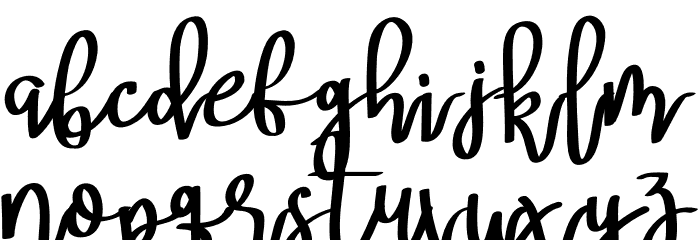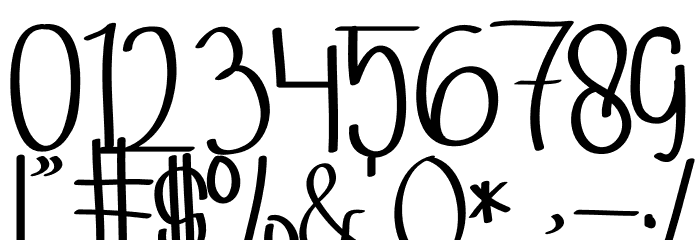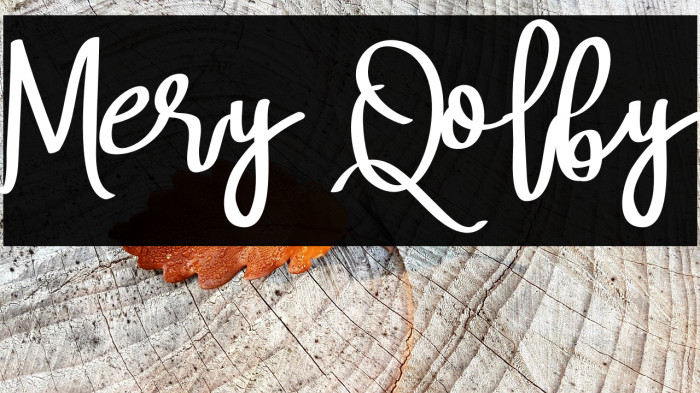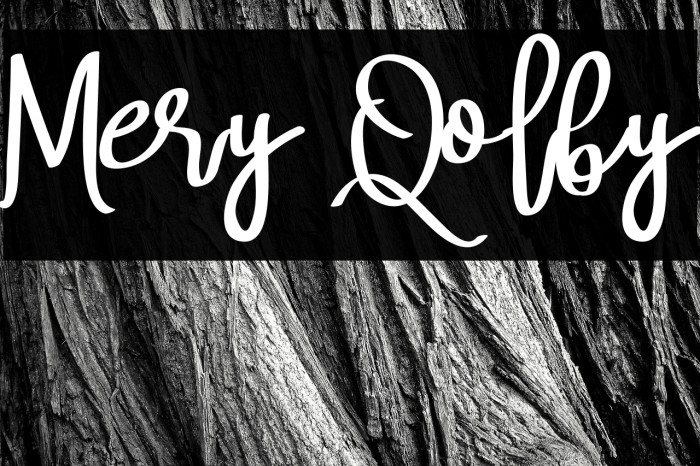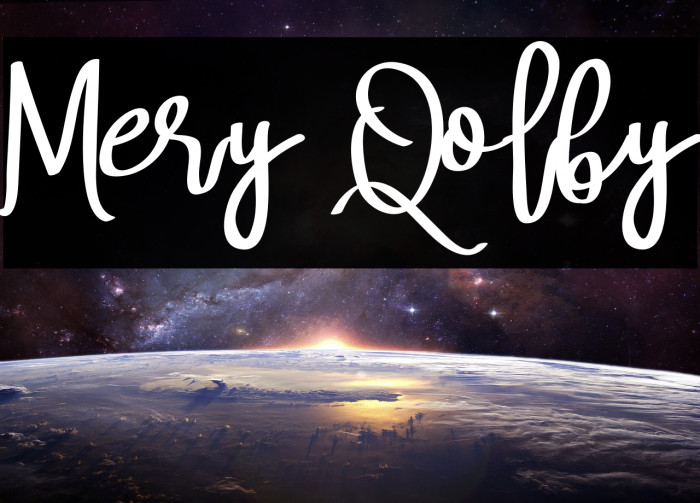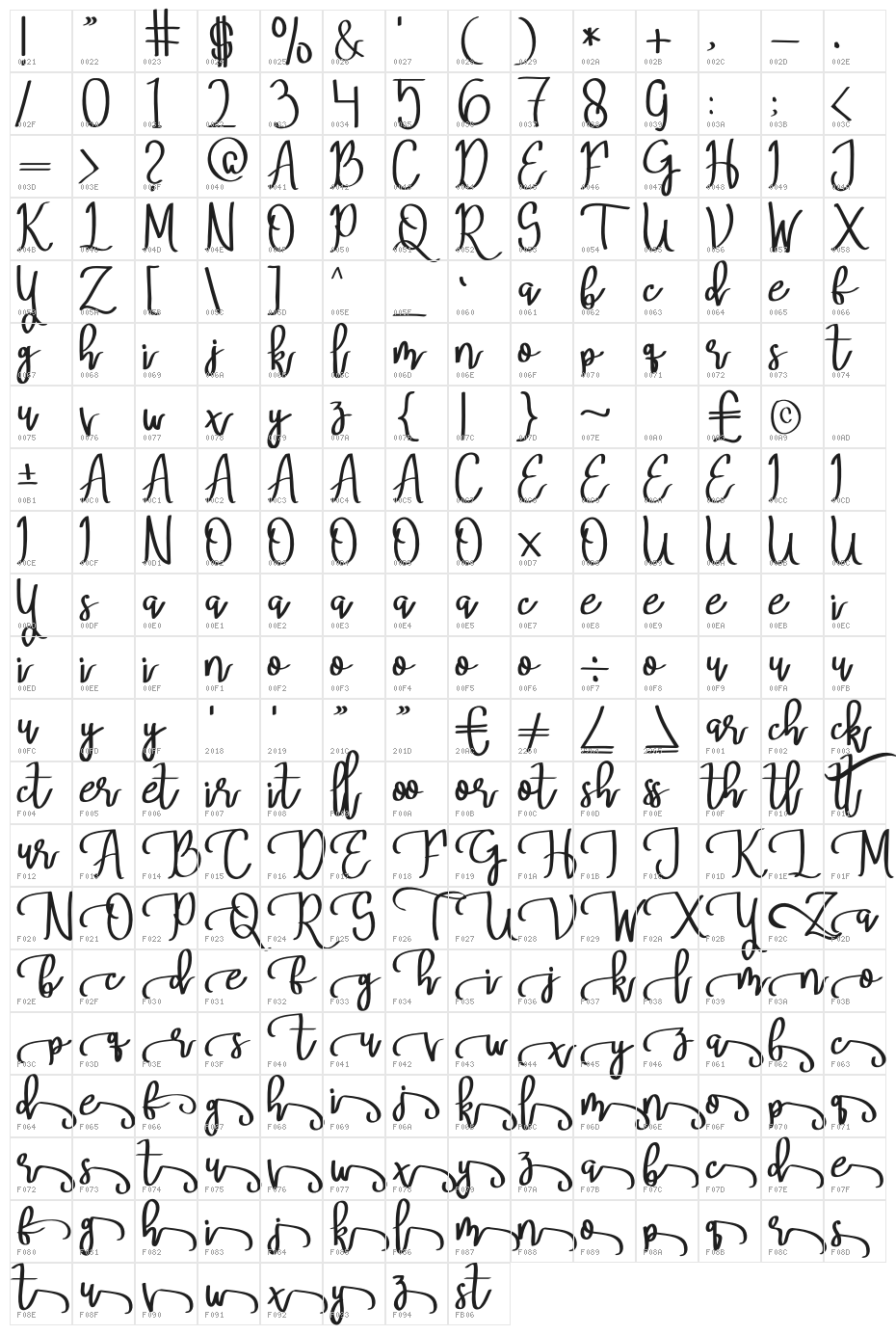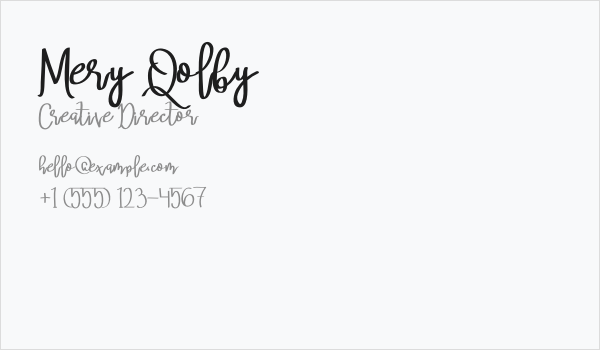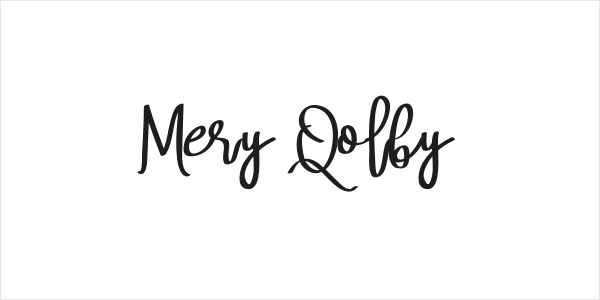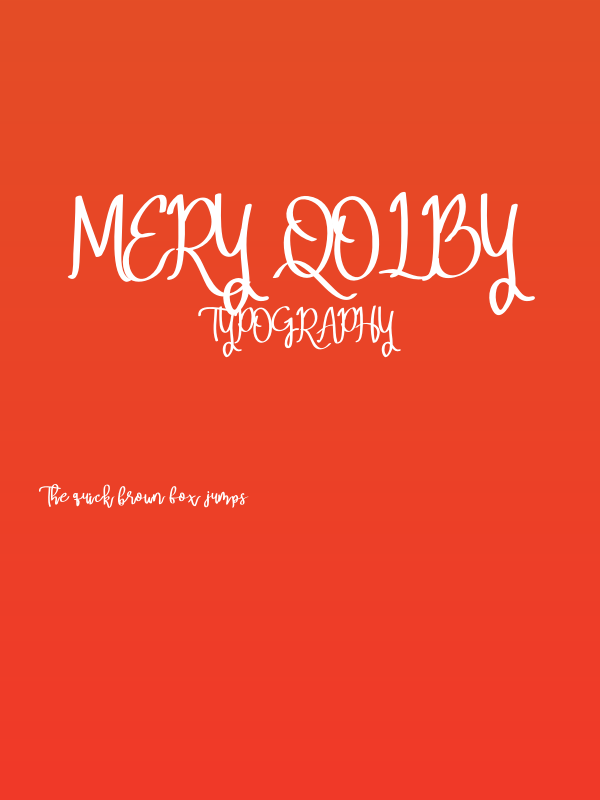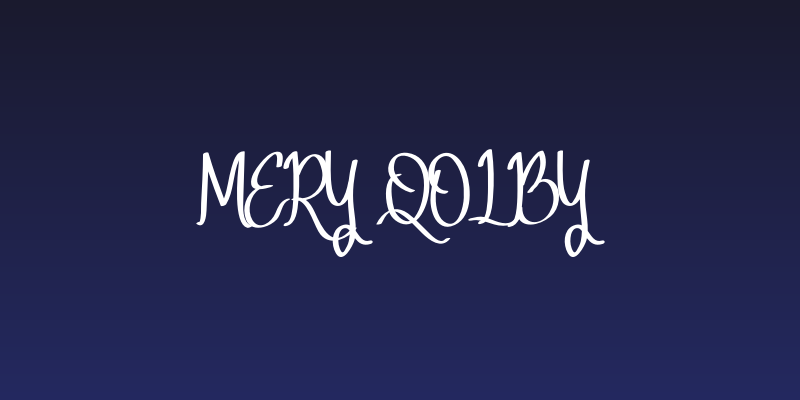
Mery Qolby Font
This font features a lively and expressive handwritten style, characterized by its fluid and dynamic strokes. The uppercase letters are bold and slightly slanted, giving a sense of motion and energy. The lowercase letters maintain a consistent flow, with some characters extending below the baseline, adding to its casual and informal appearance. Numbers and special characters follow the same playful and energetic design, making the font versatile for various creative applications. The overall look is modern and artistic, suitable for projects that require a personal touch.
A lively, expressive handwritten font with fluid, dynamic strokes.
- Proposed Projects: Ideal for greeting cards, invitations, personal branding, and artistic projects.
- Use Case: Logos, Headlines, Artistic projects